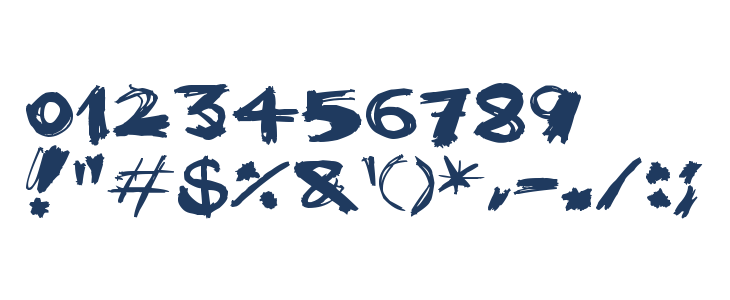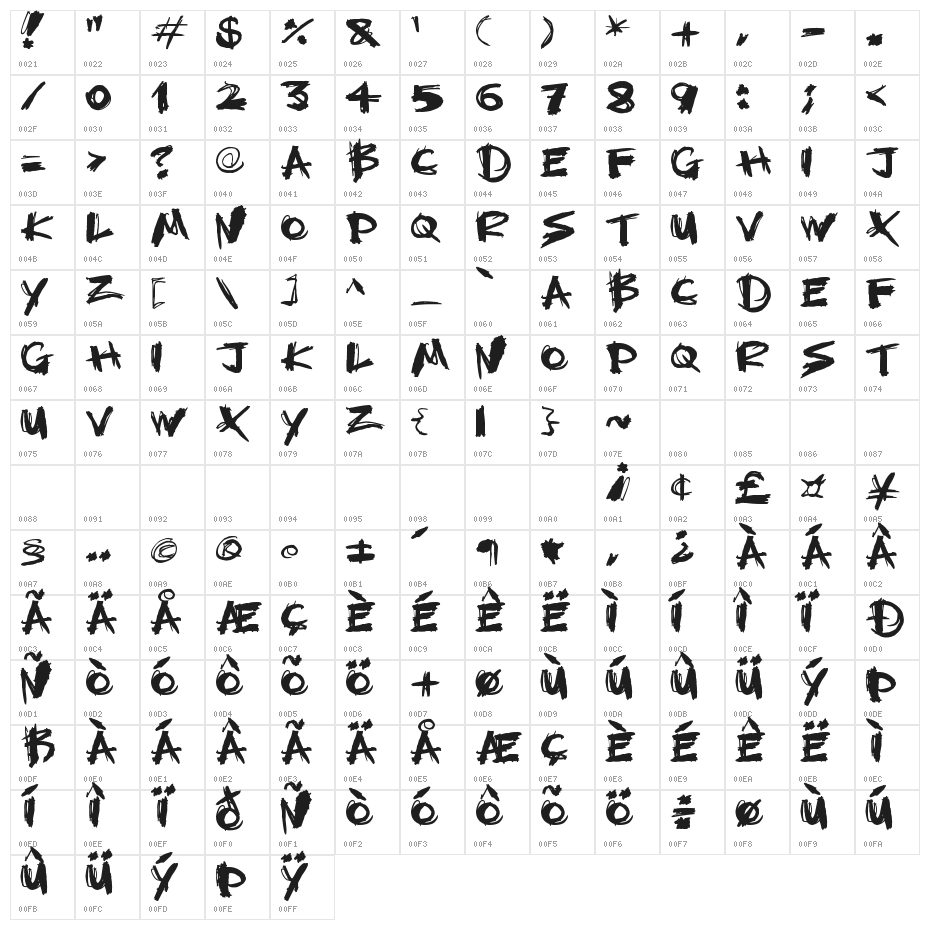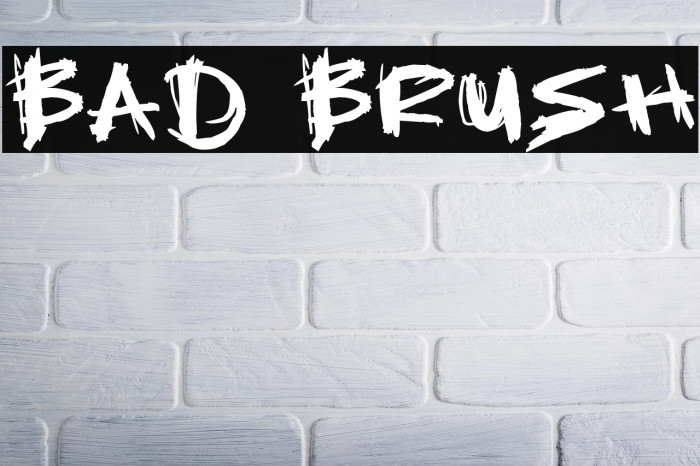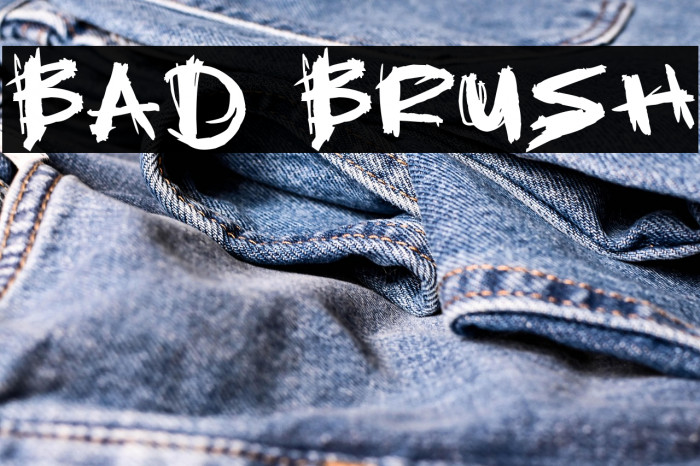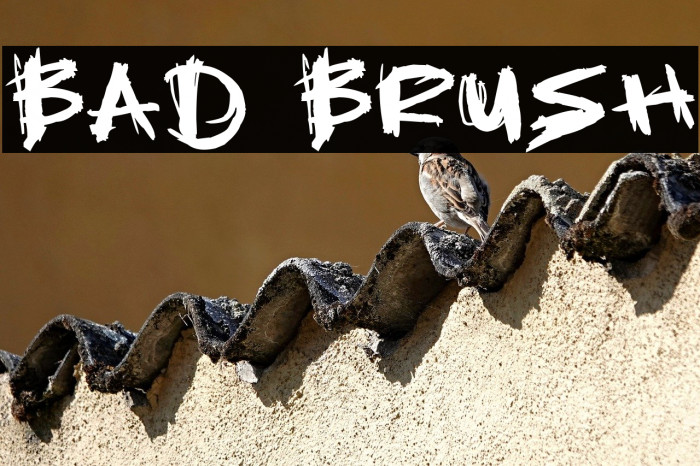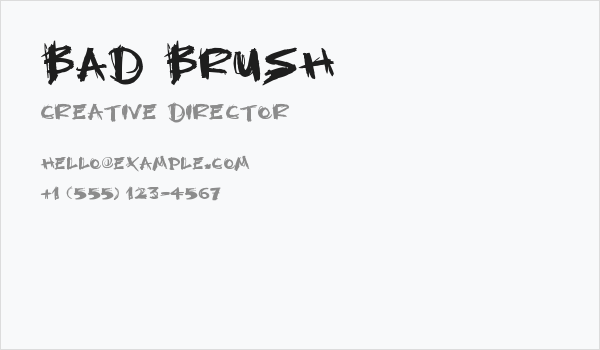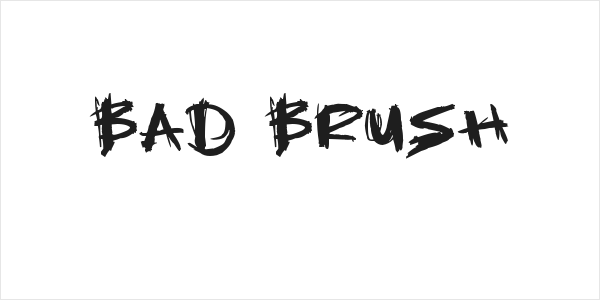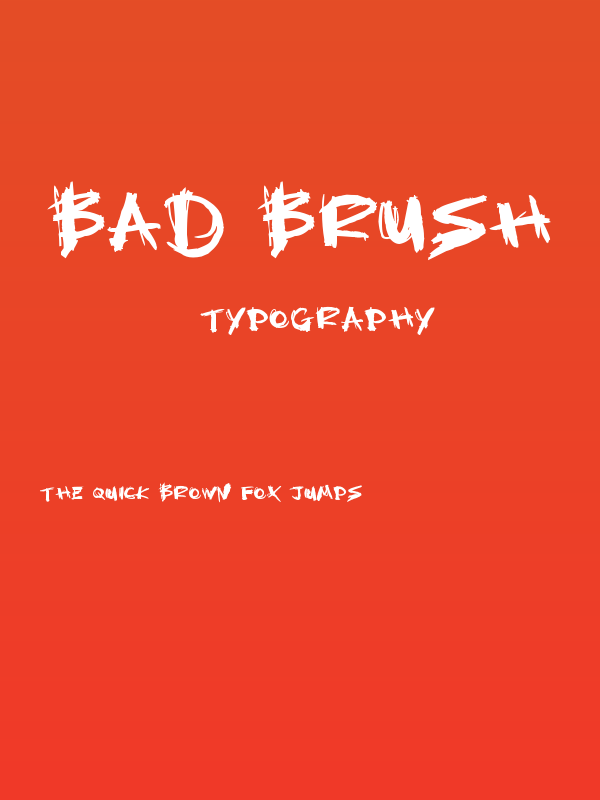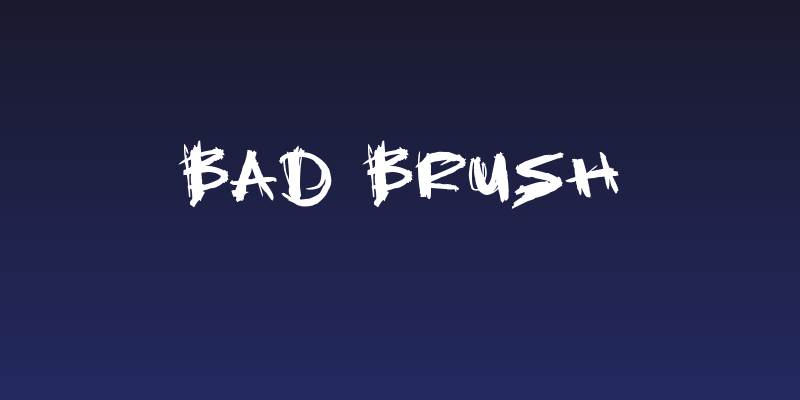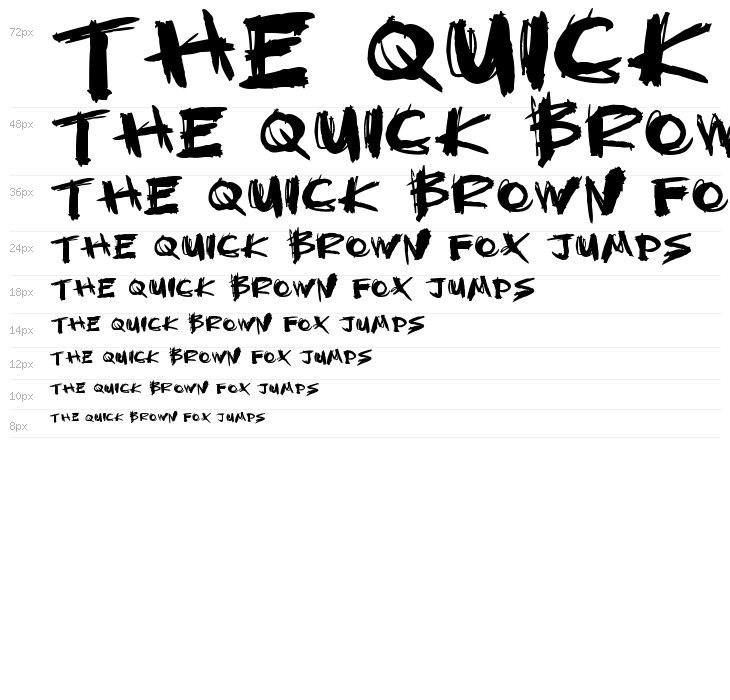
Bad Brush Font
Bad Brush Description
This font features a bold, expressive brush style that exudes energy and creativity. The strokes are thick and uneven, giving it a raw, hand-painted appearance. Each character is unique, with jagged edges and varying thicknesses that add to its dynamic feel. The uppercase and lowercase letters maintain a consistent style, while the numerals and special characters complement the overall aesthetic. This font is perfect for projects that require a strong, artistic touch, such as posters, album covers, or branding for creative industries.
| Proposed Projects | Ideal for posters, album covers, branding for creative industries, and any project needing a dynamic, artistic touch. |